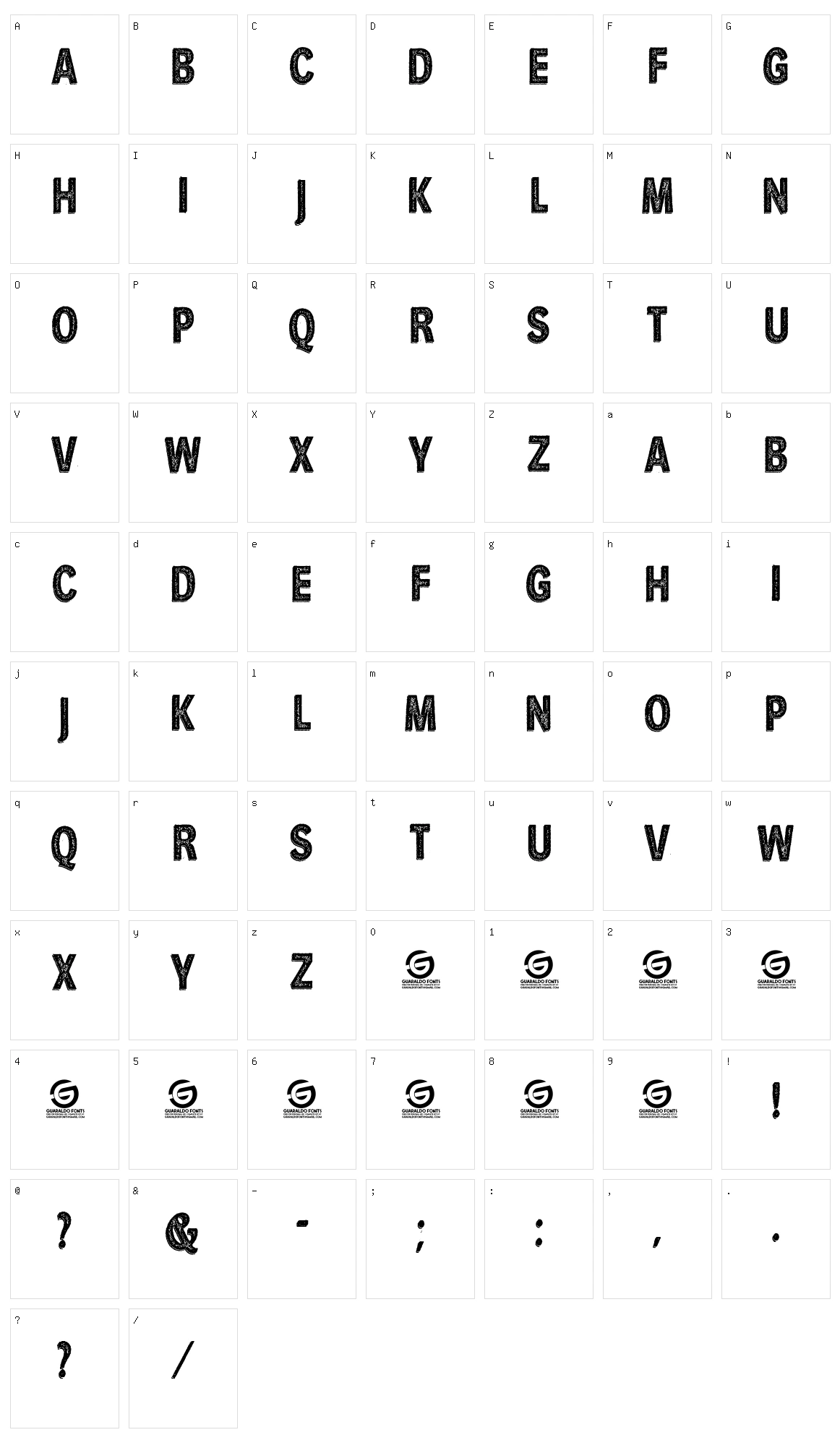
The free font She Rocks is carefully designed by Guaraldo Fonts, showcasing a thoughtful balance of creativity and usability and falls under the Eroded font style. When you download the ZIP file, it contains only 299.28 KB of font files, making it lightweight and quick to download. Please review the license details below to understand permitted usage and distribution rights. If license information is not available, we recommend using this font for personal projects only or contacting the author directly for commercial usage permissions.